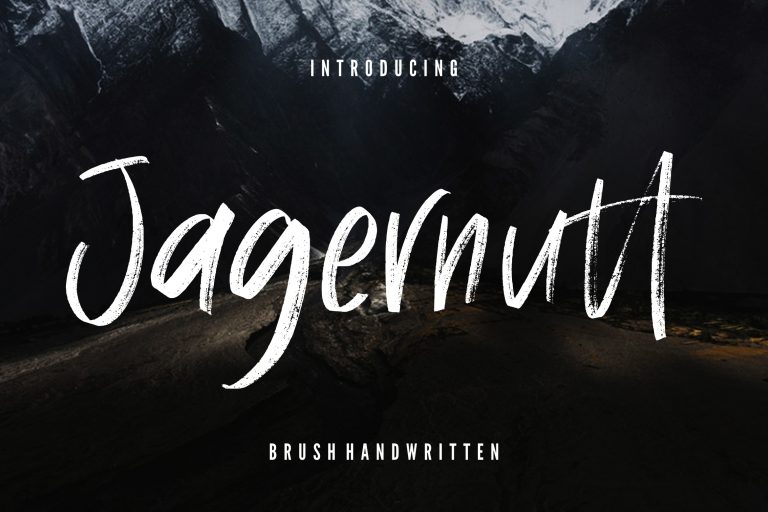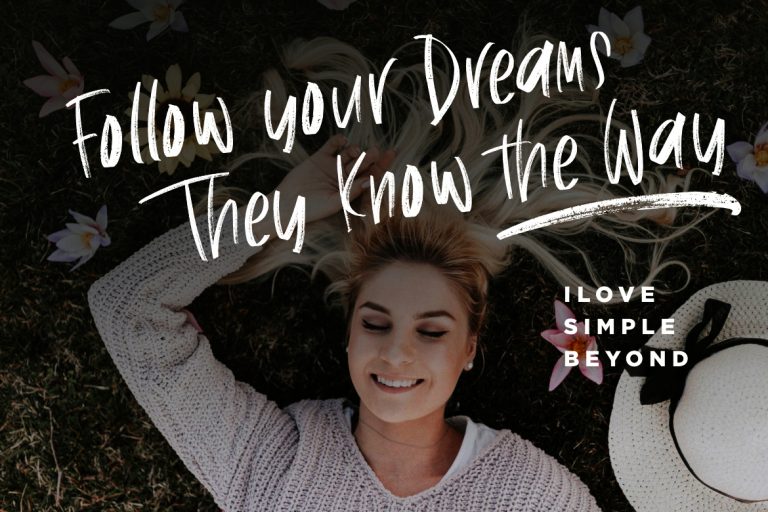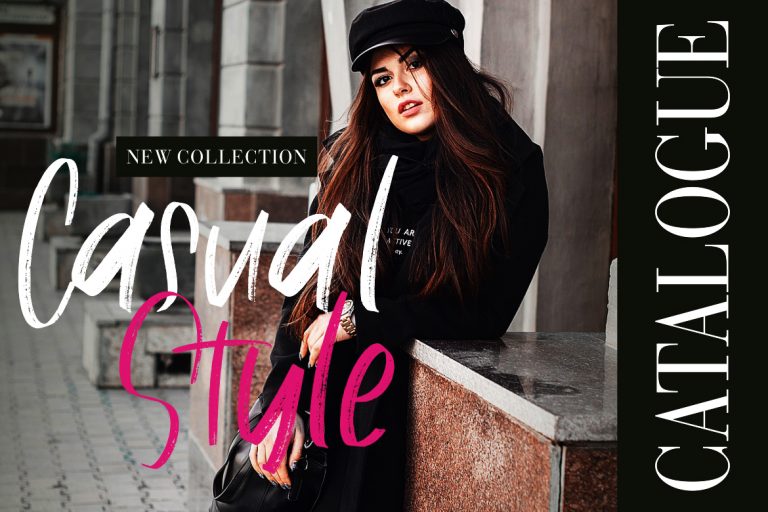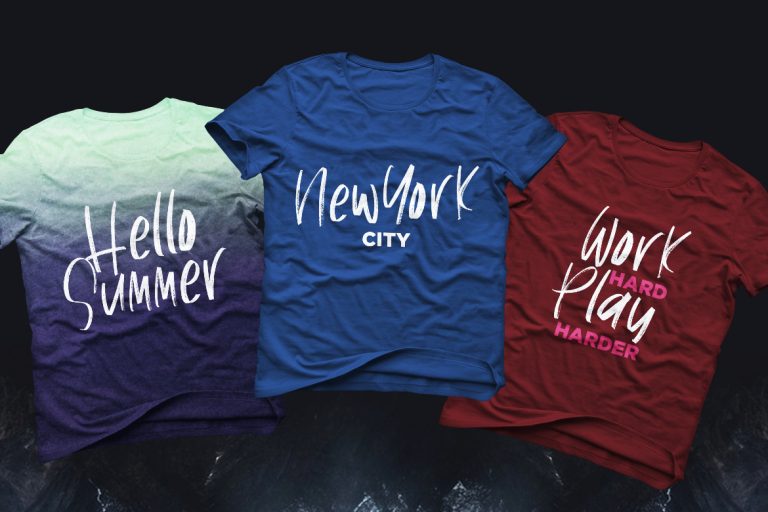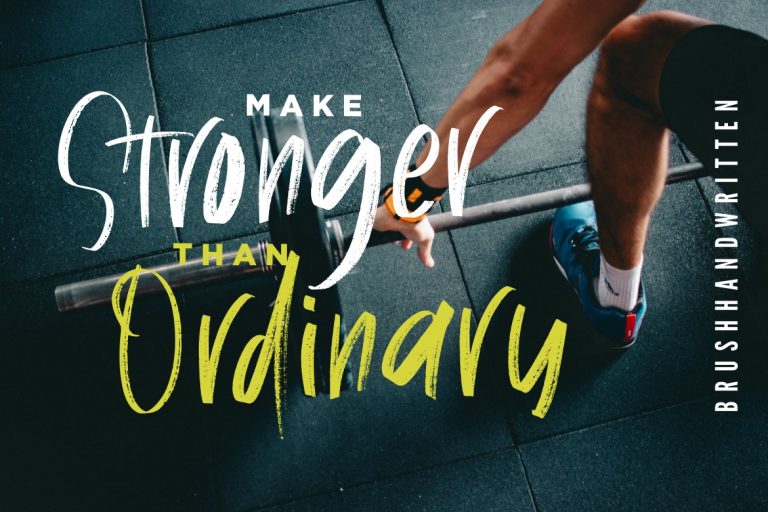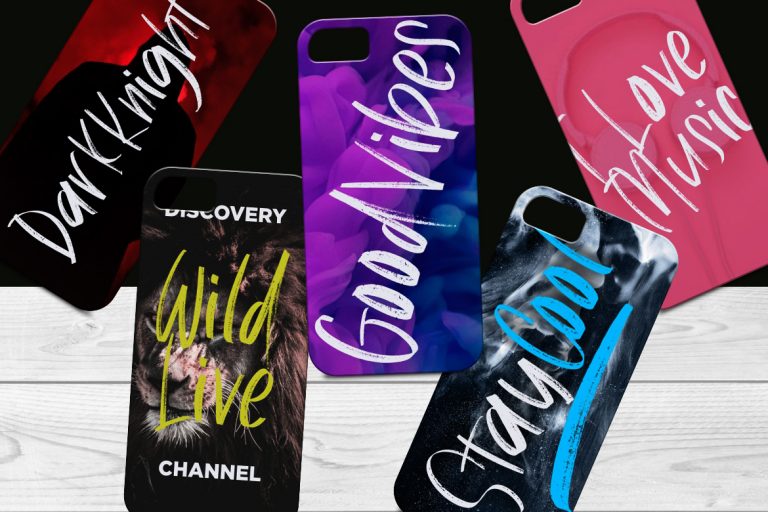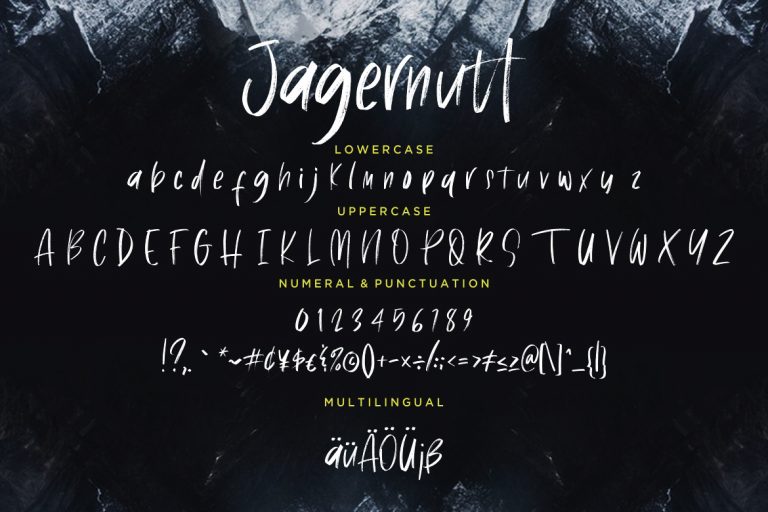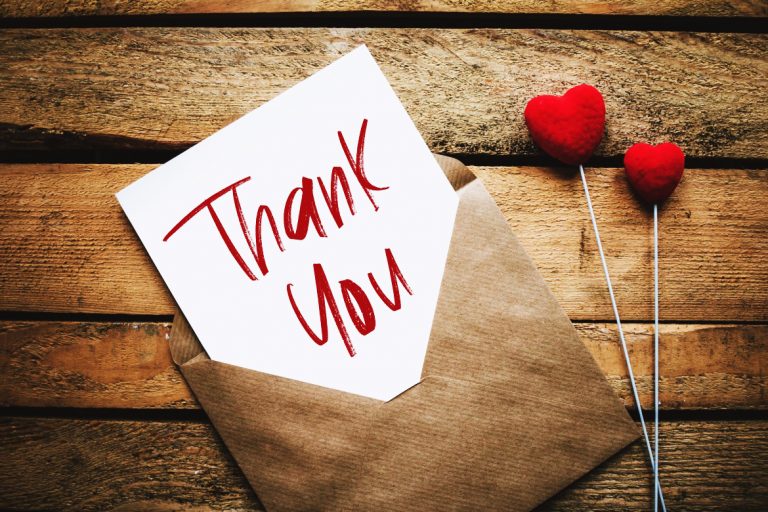
Jagernutt is authentic brush handwritten font with natural movement that perfect for your latest project.
Jagernutt is perfect for branding projects, logo, wedding designs, social media posts, advertisements, product packaging, product designs, label, photography, watermark, invitation, stationery and any projects that need handwriting taste.
- Standard glyphs
- Ligature
- Fonts include multilingual support for; ä ö ü Ä Ö Ü ß ¿ ¡
Jagernutt Brush Handwritten